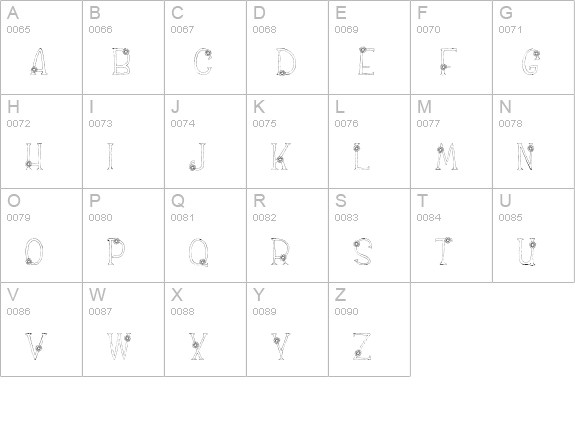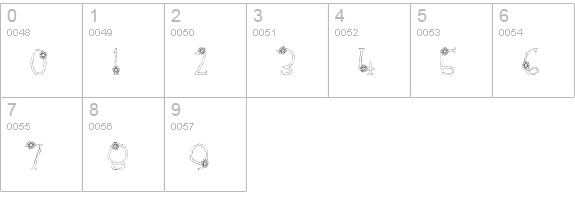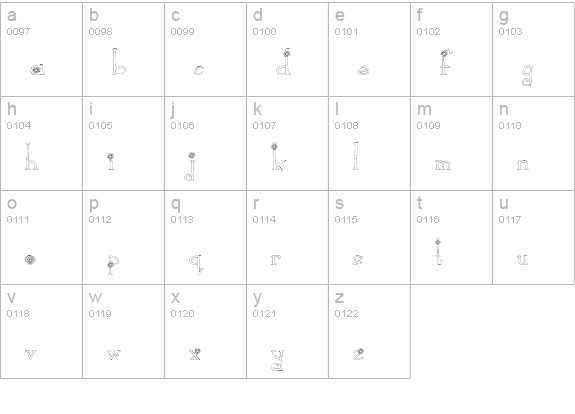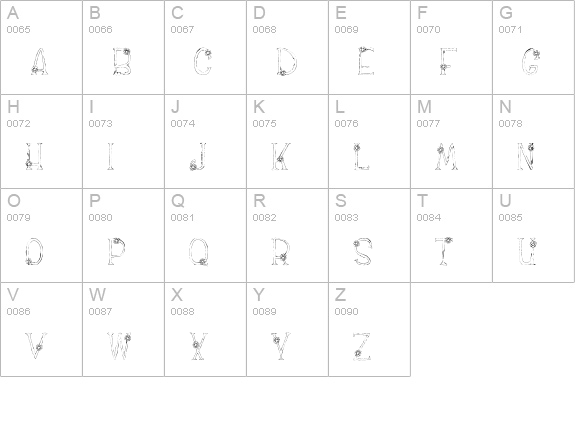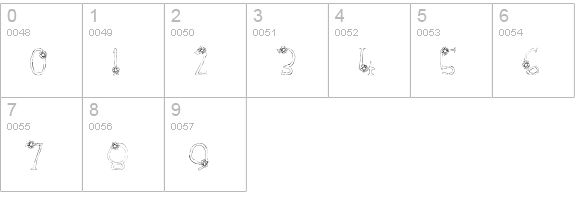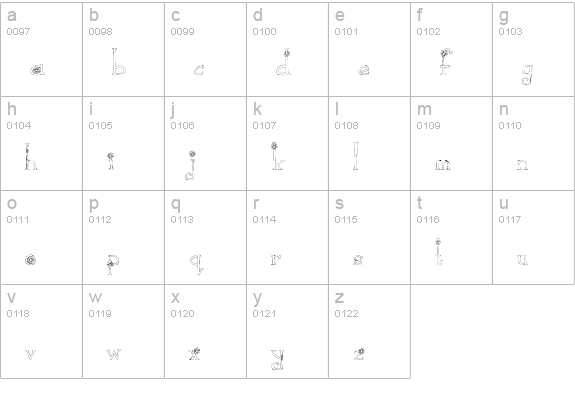
CK Daisy Font Details
CK Daisy font is a whimsical and playful typeface that exudes charm and friendliness. Its elegant curves and unique style make it perfect for a variety of design projects, from invitations to branding to social media graphics. The CK Daisy font is free to download at FontsMarket.com, making it accessible to all designers looking to add a touch of creativity to their work. With its cheerful and inviting appearance, this font is sure to brighten up any design and leave a lasting impression on viewers. Let CK Daisy font bring a sense of joy and creativity to your next project!